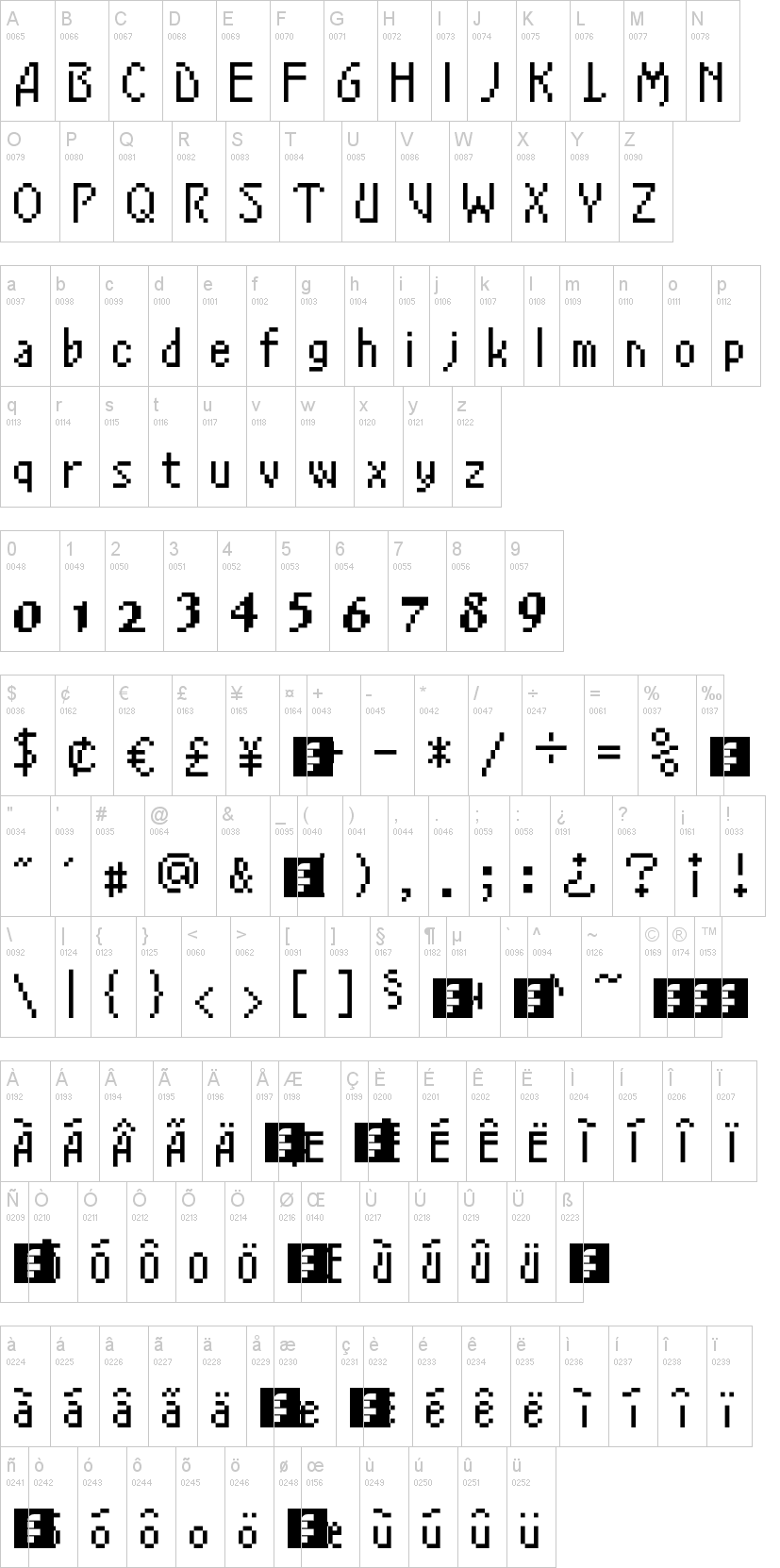
Note of the authorThis is the font used in the NDS game Final Fantasy Crystal Chronicles Echoes of Time.
Usually when I check game sprite rips, there's a font as well.
But sometimes I can't find an actual font file, so I decided to make them myself.